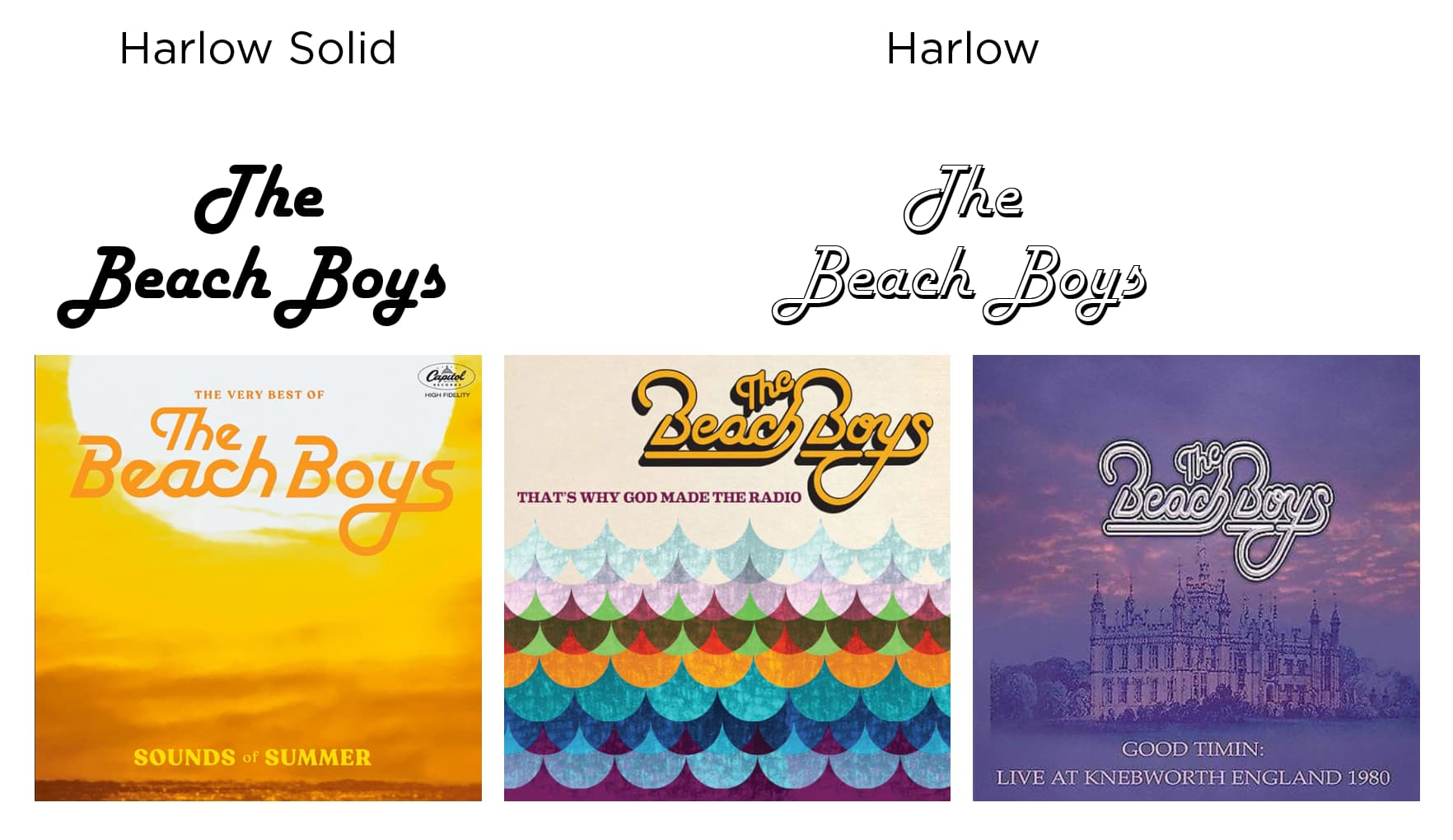
I looked a lot but couldn’t find it. I suspect it is a custom logo. The top and bottom lines are set in Recoleta.
I dug a little deeper. The closest typeface to this that I could find is Harlow, by Colin Brignall from 1977, but it isn’t that close. Here are three Beach Boys album covers, using two different but similar typefaces. Both look customized, especially the other two with an open design.